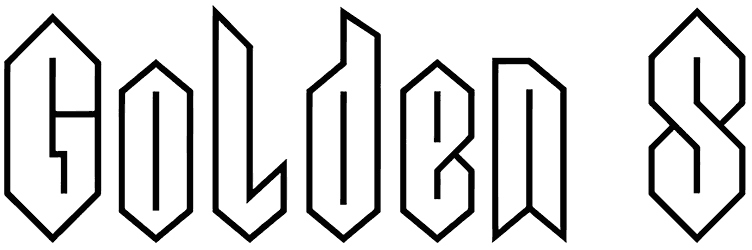
Golden S Font
Your message will be delivered in a royal and captivating way if you select this gothic font to adorn your layout. The letters of this outline font are sharp and strong, but it doesn’t support numbers and punctuation mar…
Your message will be delivered in a royal and captivating way if you select this gothic font to adorn your layout. The letters of this outline font are sharp and strong, but it doesn’t support numbers and punctuation marks. Let’s set the Golden S font on your next design, like an energetic concert invitation flyer, and hook a lot of people.
Golden S Font